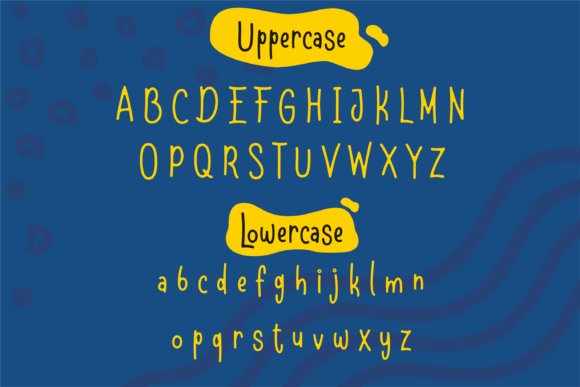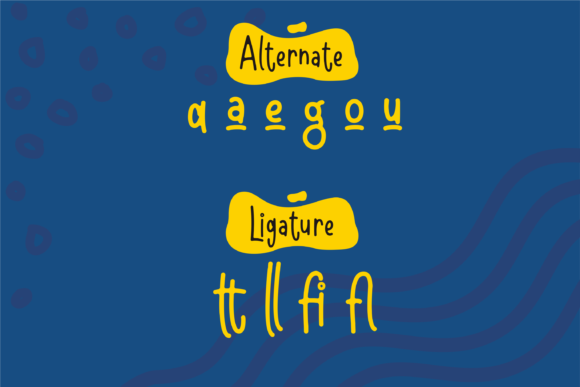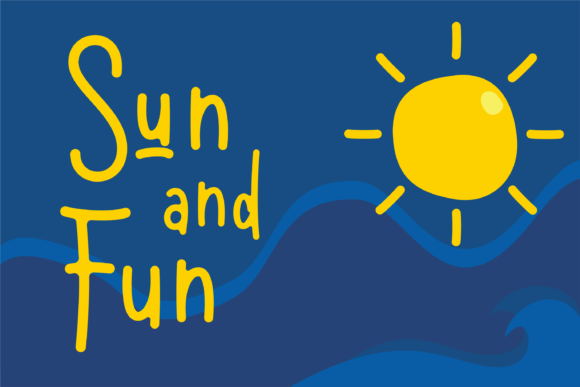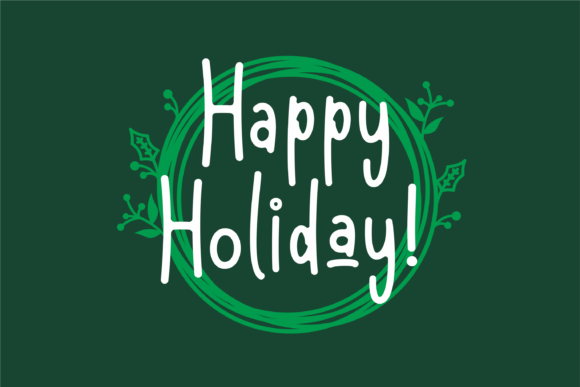
About Shell & Fish Font
Shell & Fish is a simple and natural handwritten font that exudes a delightful charm. Its clean and unpretentious style makes it a versatile choice for a wide variety of projects, adding a touch of authenticity and warmth to your designs.
The simplicity of Shell & Fish makes it a wonderful option for creating quotes and inspirational messages. Whether you’re designing social media graphics or printable wall art, this font will infuse your words with a sense of sincerity and genuineness.
Its friendly and approachable vibe also makes it perfect for greeting cards and invitation cards. Whether it’s for birthdays, weddings, or any other special occasion, Shell & Fish will help you convey your message with a heartfelt touch.
For children’s books, Shell & Fish offers a playful and engaging look that young readers will adore. Its handwritten feel adds a personal and intimate connection, making it an excellent choice for bringing stories to life.
Additionally, Shell & Fish is a fantastic companion for your craft projects. Whether you’re creating DIY cards, scrapbooking, or making personalized gifts, this font will add a touch of handcrafted charm to your creations.
Its natural and unpretentious nature also makes Shell & Fish suitable for branding and logo design. Its genuine and approachable style can help you create a brand identity that feels authentic and down-to-earth.
In conclusion, Shell & Fish is a simple and natural handwritten font that brings a sense of authenticity and warmth to your projects. Its versatility makes it suitable for a wide range of designs, from quotes and greeting cards to children’s books and craft projects. Embrace the simplicity of Shell & Fish and let it add a genuine and heartfelt touch to your creations.